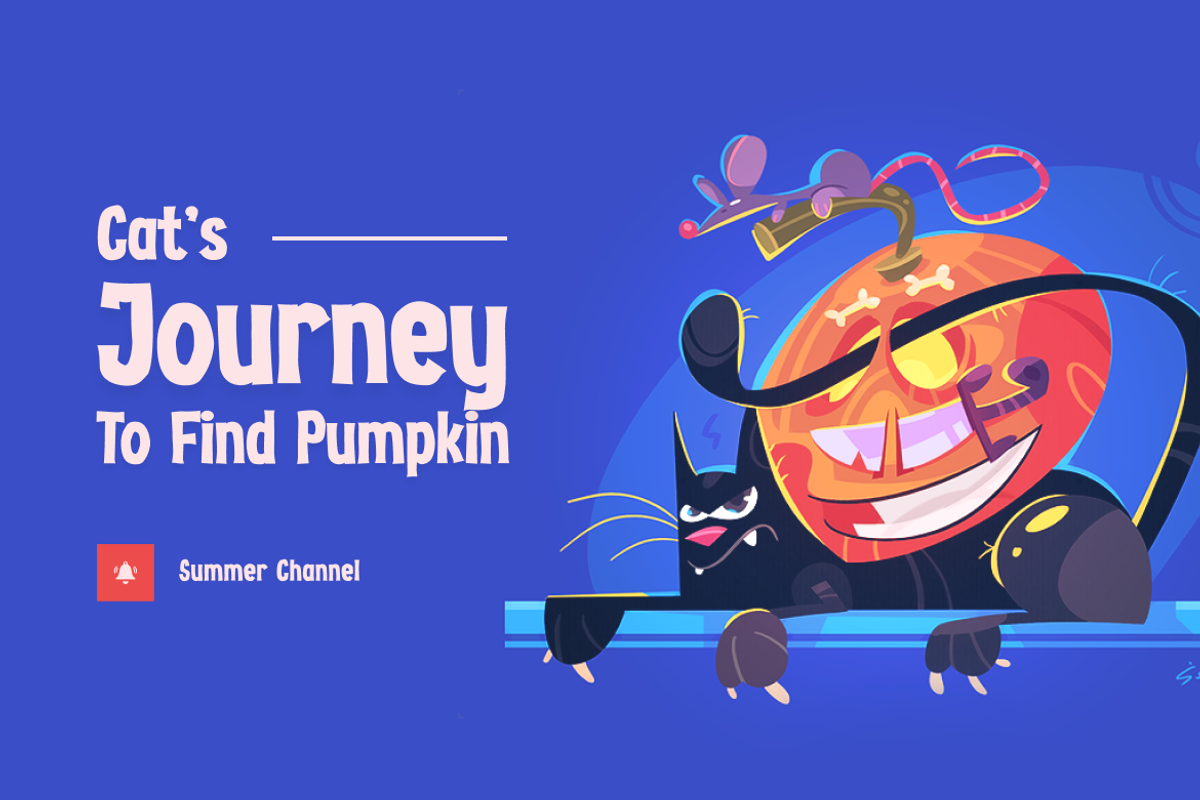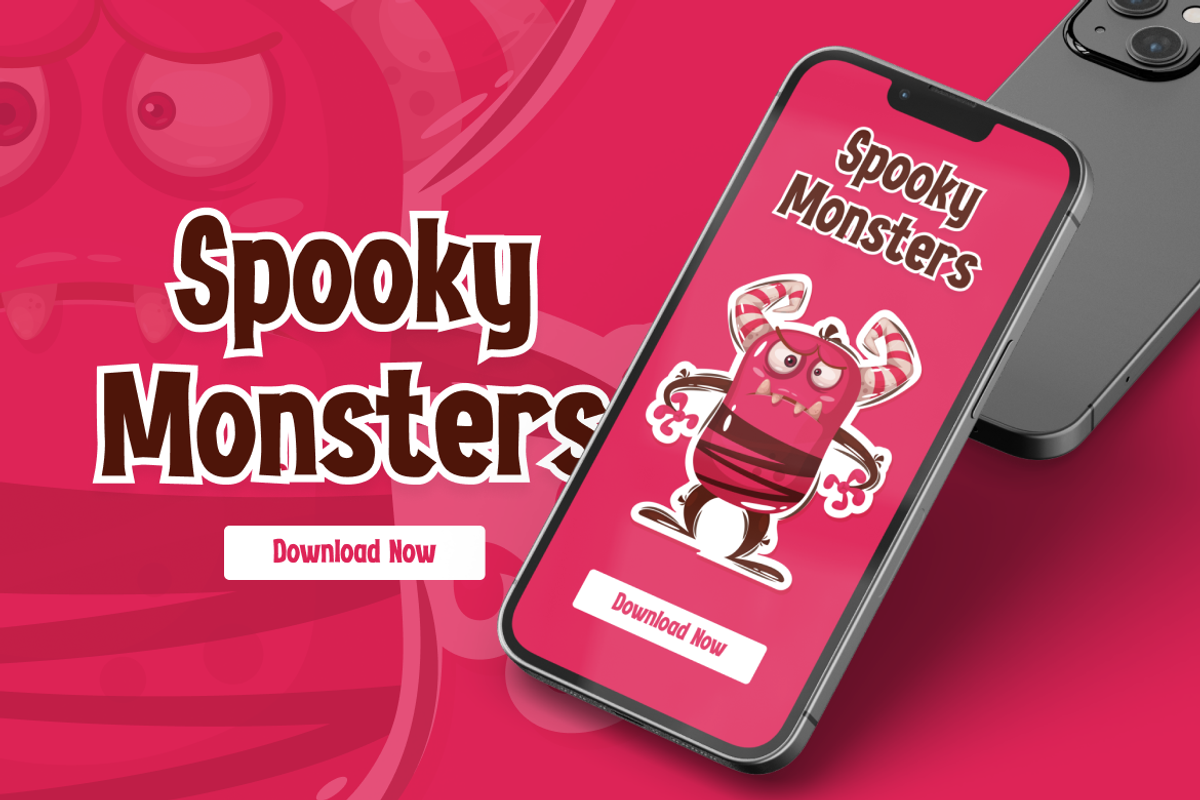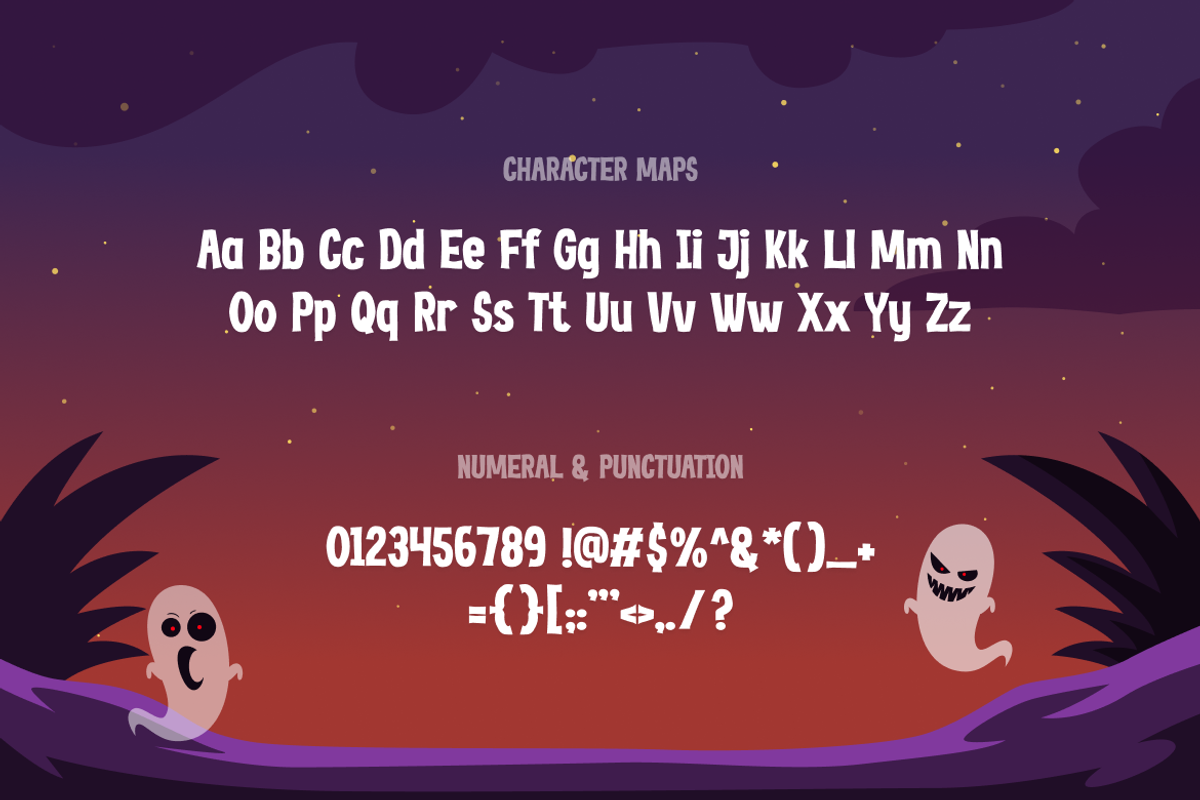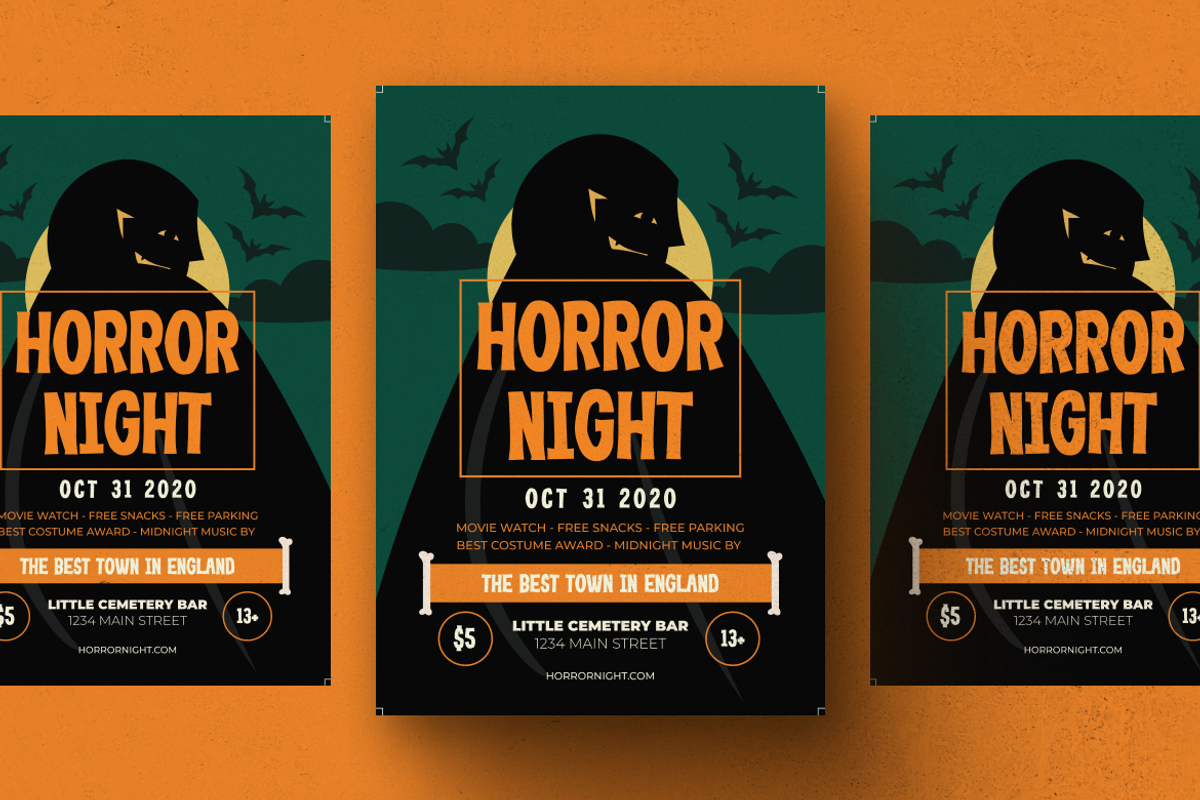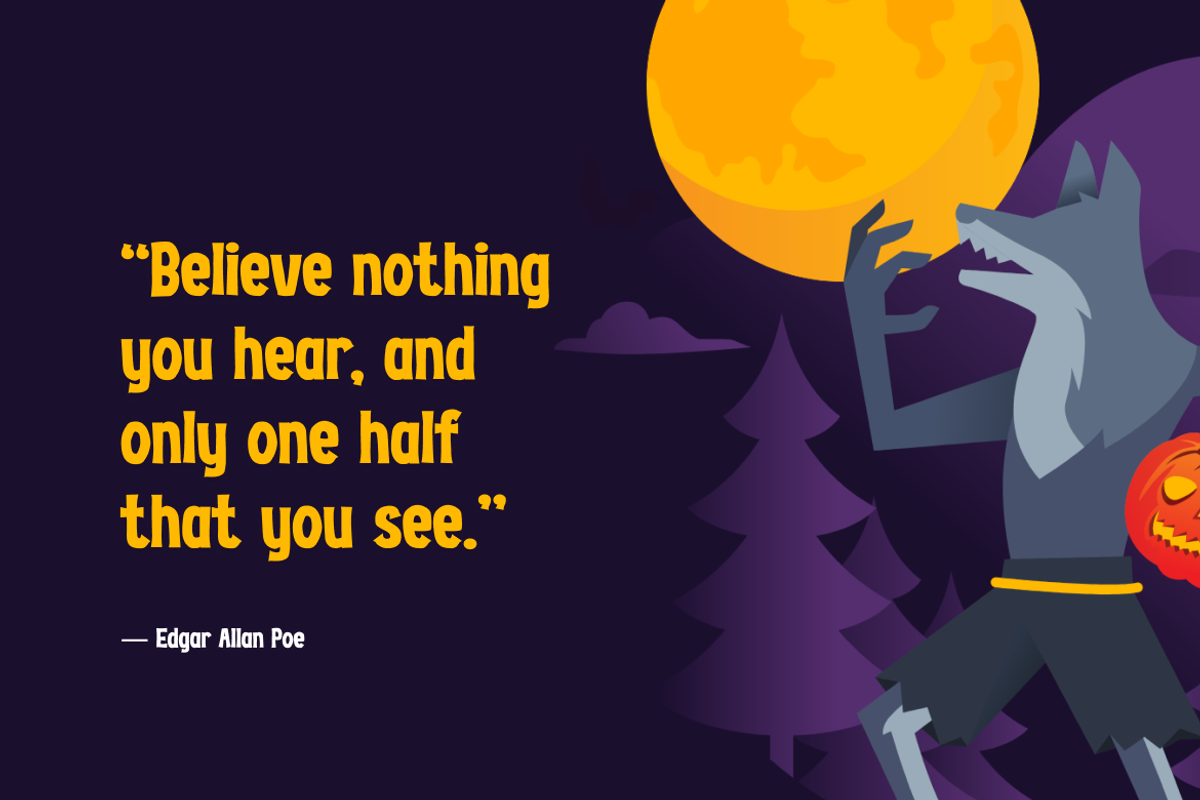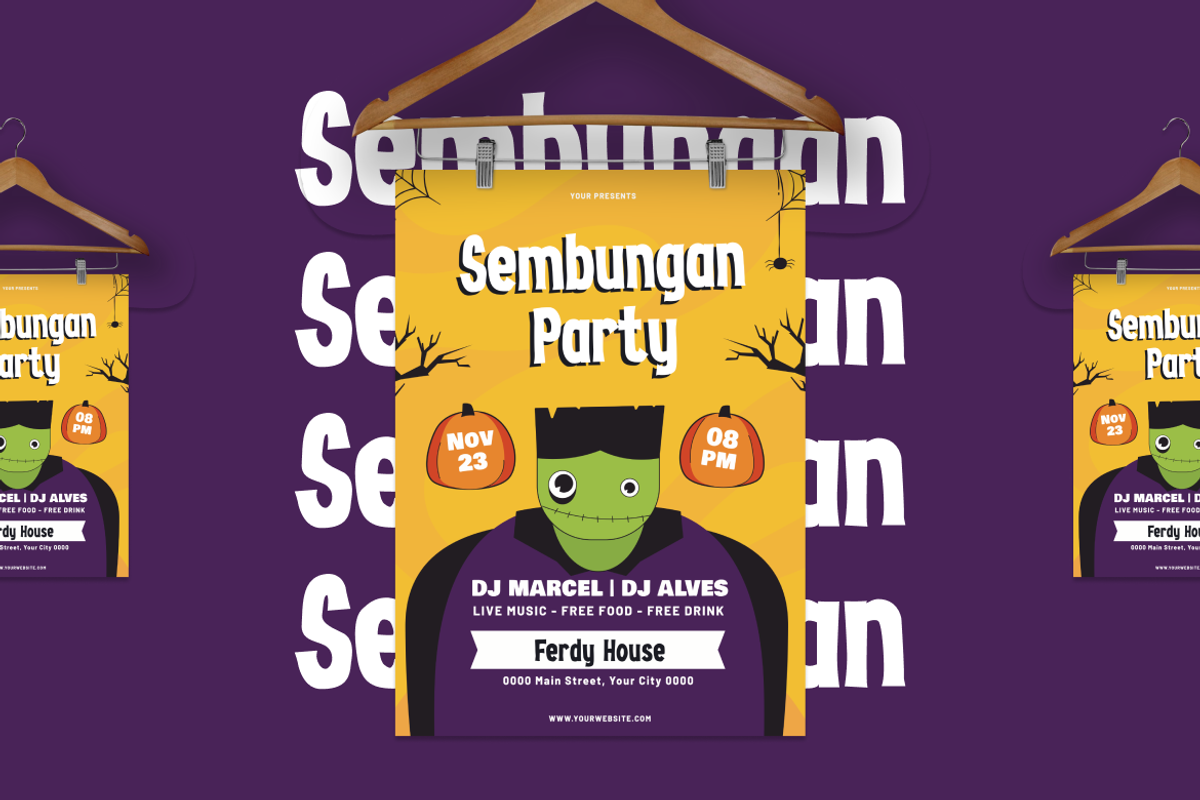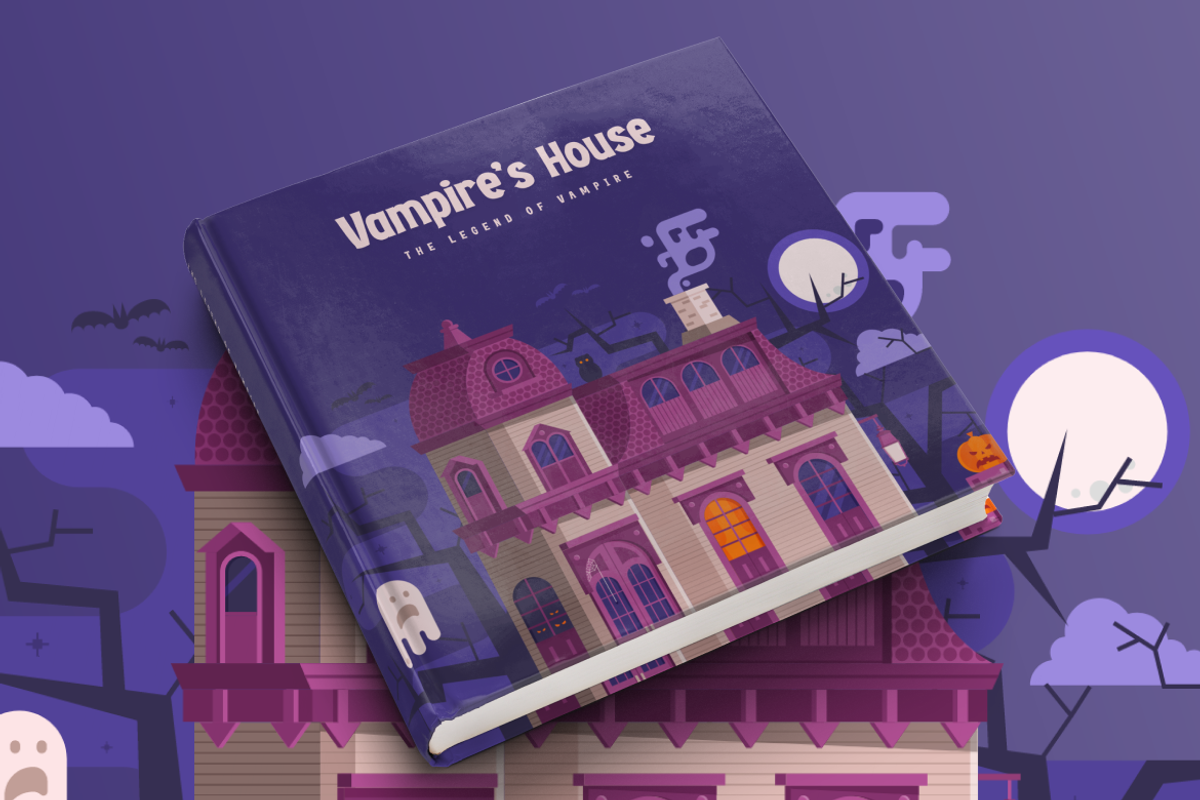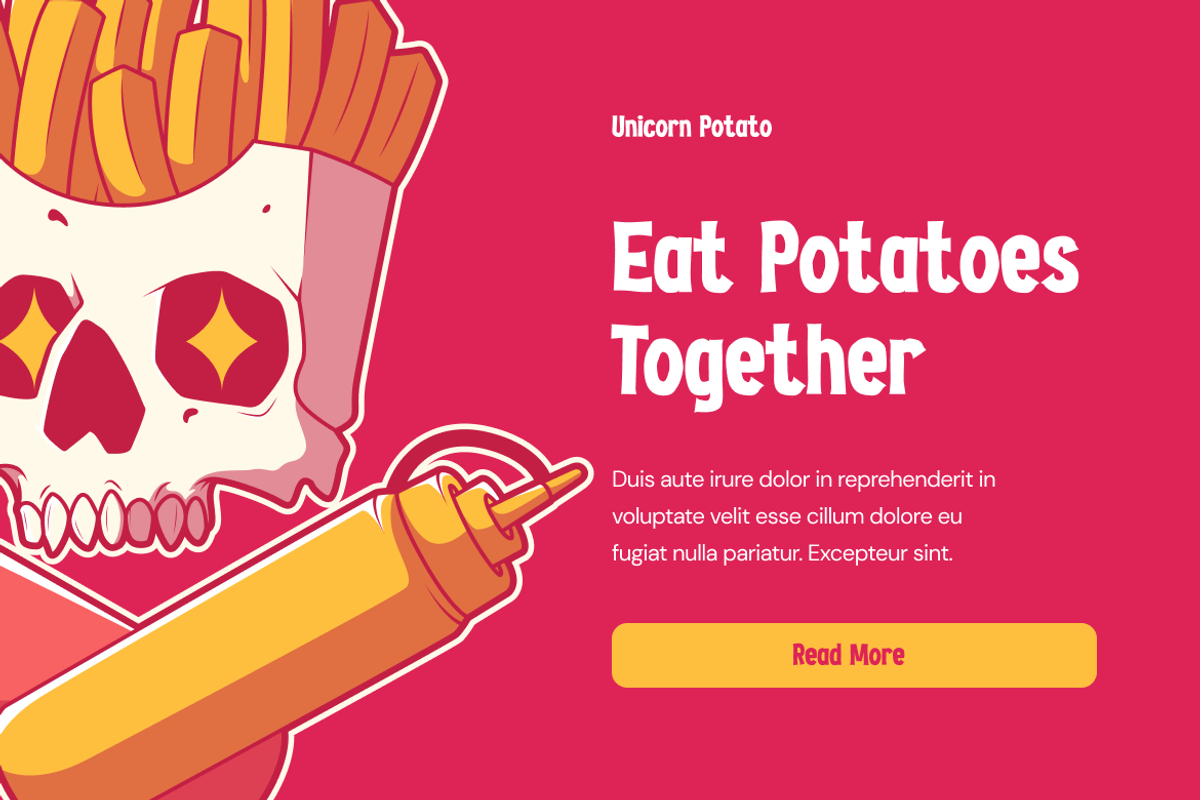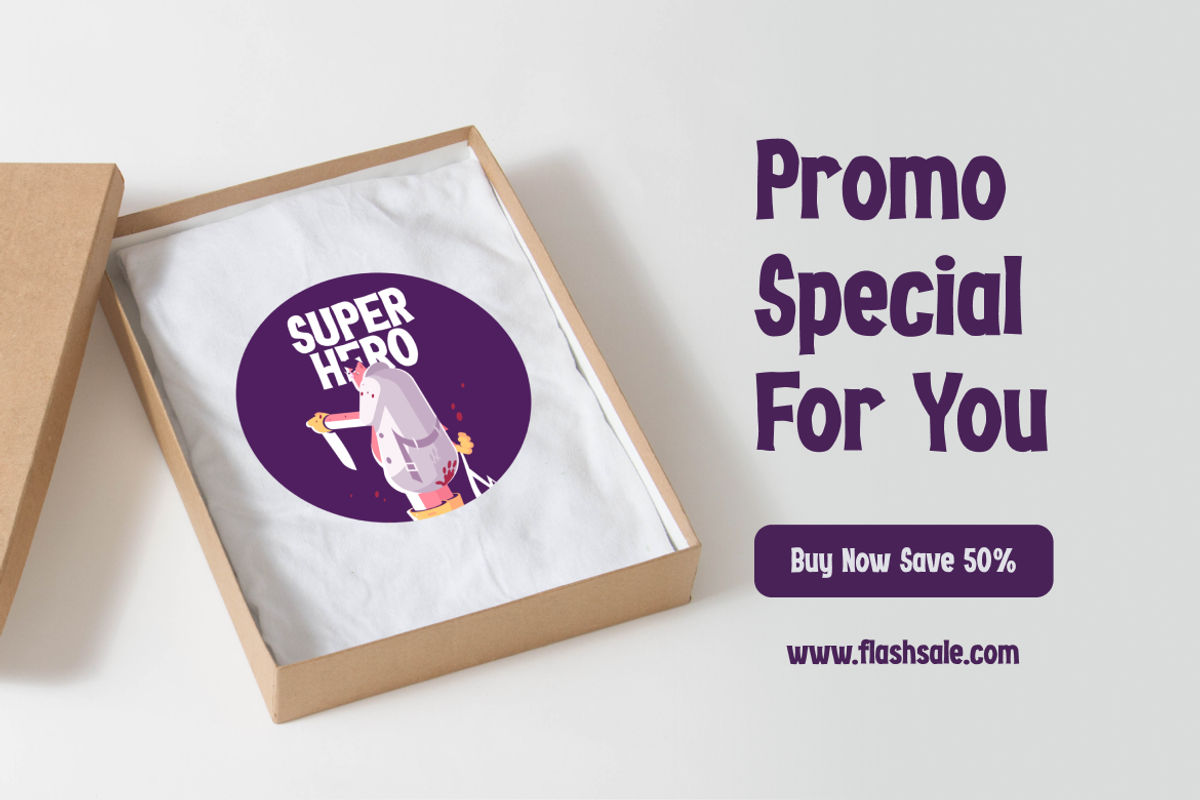
Hoodville - Horror Font
Just like its name, Hoodville creates terror in everything it is written. The rough and jagged brush texture emphasizes the scream of the scared audiences.
Suit perfectly for Spooky and Scary Halloween games, poster, movie title, fast food menu, magazine, youtube covers, youtube thumbnails, social media page covers and so on…